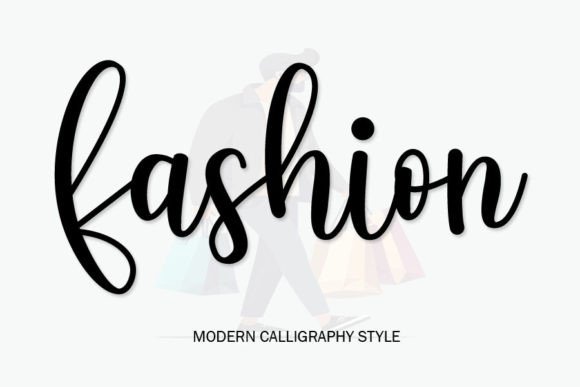
Fashion Font: The Perfect Handwritten Font for Your Design Needs
Fashion Font is a beautiful, sweet, and friendly handwritten font that has captured the hearts of designers and crafters alike. Its fresh and casual vibe makes it an ideal choice for adding a lovely touch to various designs, from wedding invitations and cards to branding and packaging. In this article, we’ll dive into the world of Fashion Font, exploring its features, benefits, and uses, as well as provide tips on how to make the most of this stunning font.
What is Fashion Font?
Fashion Font is a type of script font that mimics the look of handwritten text. Its elegant and flowing strokes, combined with its casual and approachable feel, make it perfect for designs that require a personal touch. This font is designed to evoke a sense of warmth and friendliness, making it an excellent choice for projects that need to convey a sense of approachability and sincerity.
Key Features of Fashion Font
- Handwritten look: Fashion Font boasts a genuine handwritten appearance, complete with subtle imperfections and variations in stroke width.
- Fresh and casual: This font exudes a sense of freshness and casualness, making it perfect for designs that require a relaxed and approachable vibe.
- Elegant strokes: Fashion Font features elegant, flowing strokes that add a touch of sophistication to any design.
- Versatile: This font is highly versatile and can be used for a wide range of design projects, from wedding invitations and cards to branding and packaging.
Benefits of Using Fashion Font
- Adds a personal touch: Fashion Font’s handwritten look adds a personal touch to your designs, making them more relatable and engaging.
- Evokes emotions: The warm and friendly feel of Fashion Font can evoke emotions and create a connection with your audience.
- Stand out from the crowd: With its unique and elegant strokes, Fashion Font can help your designs stand out from the crowd and leave a lasting impression.
- Easy to read: Despite its handwritten look, Fashion Font is easy to read and understand, making it perfect for designs that require clear communication.
Uses of Fashion Font
Fashion Font is an incredibly versatile font that can be used for a wide range of design projects, including:
- Wedding invitations and cards: Add a touch of elegance and romance to your wedding invitations and cards with Fashion Font.
- Branding and packaging: Use Fashion Font to create unique and memorable branding and packaging designs that stand out from the crowd.
- Social media graphics: Add a personal touch to your social media graphics, such as Instagram posts and Facebook covers, with Fashion Font.
- Stationery and journals: Create beautiful and functional stationery and journals with Fashion Font.
Fashion Font is a stunning handwritten font that can add a touch of elegance and sophistication to any design project. Its fresh and casual vibe, combined with its elegant strokes and versatility, make it an excellent choice for designers and crafters alike. Whether you’re creating wedding invitations, branding and packaging, or social media graphics, Fashion Font is sure to make your designs stand out from the crowd.